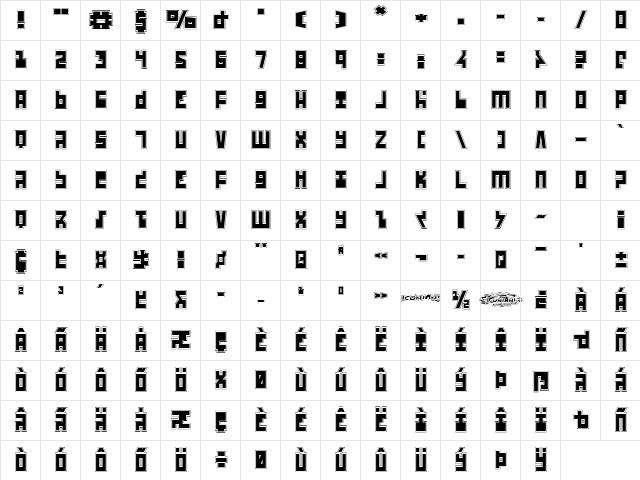
UFO Hunter Academy Regular
Design Context for UFO Hunter Academy
UFO Hunter Academy is a composed and adaptable typeface that performs quietly and consistently across a wide range of design contexts.